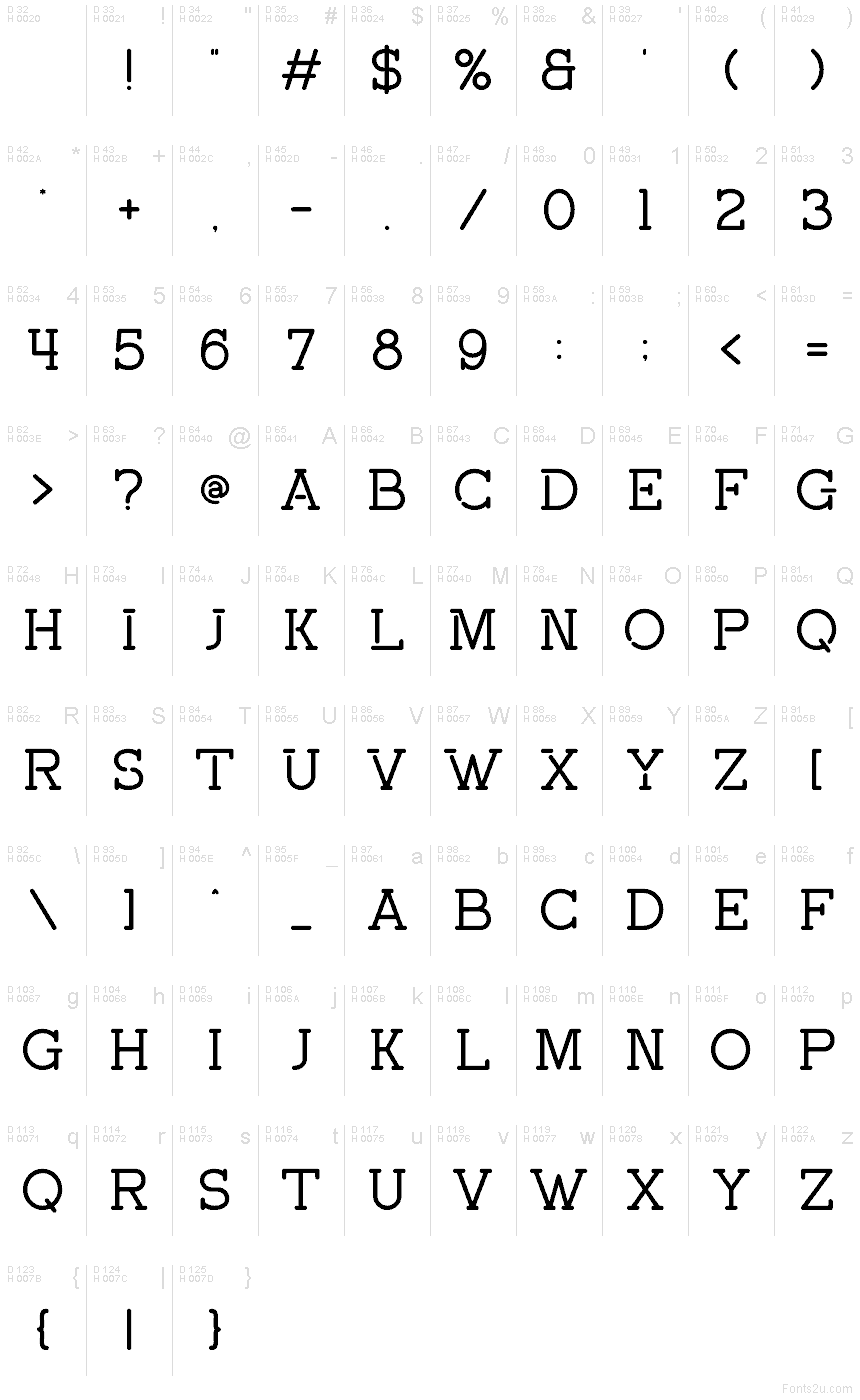
Achilast
Achilast typeface by ErmediaStudio is a free serif font. Built around rounded, rivet-like serifs and sturdy verticals, it feels both engineered and elegant—like letters punched into metal and polished smooth. The rhythm is steady and confident, giving headlines a bolted-together presence without feeling heavy or clunky.
Using Achilast, you get a distinctive industrial-romantic voice that shines on logos, posters, packaging, event titles, book covers, and vintage-inspired signage. Those circular terminals add a tactile, mechanical wink that grabs attention at a glance, while the spacing keeps words marching in lockstep. Pair this free font with a clean geometric sans for body copy, and tighten tracking slightly at large sizes for a crisp, stamped effect.